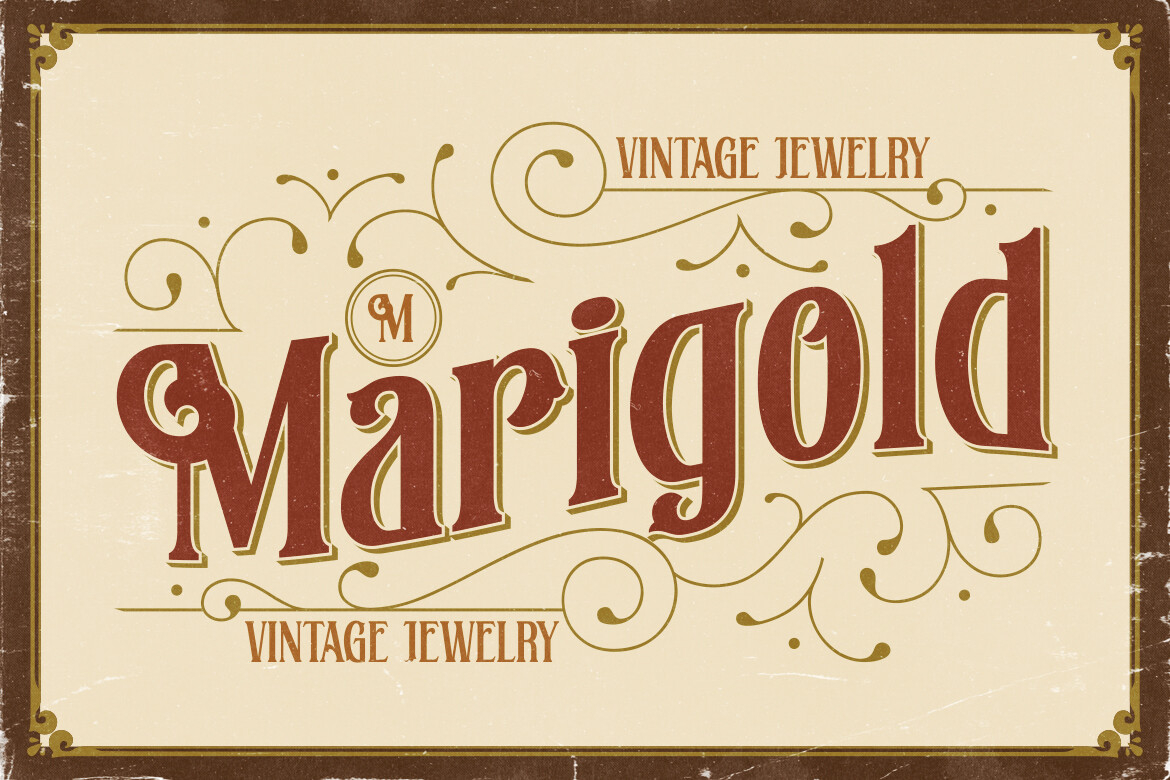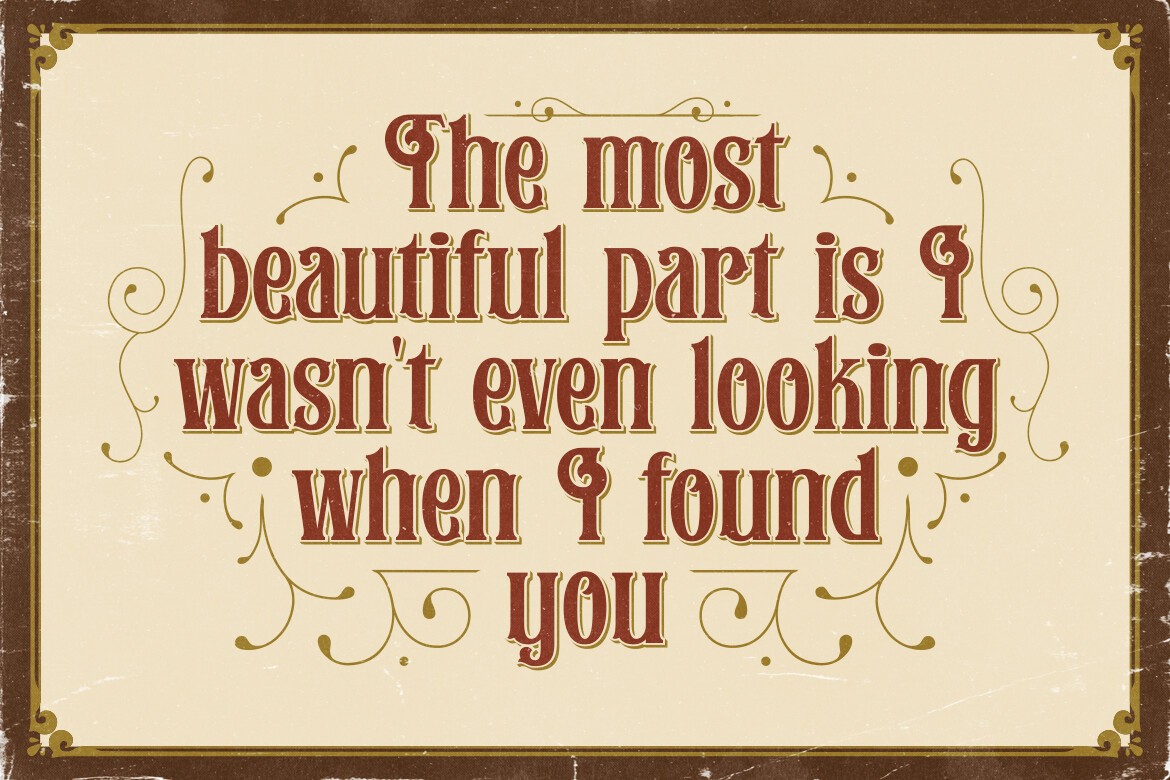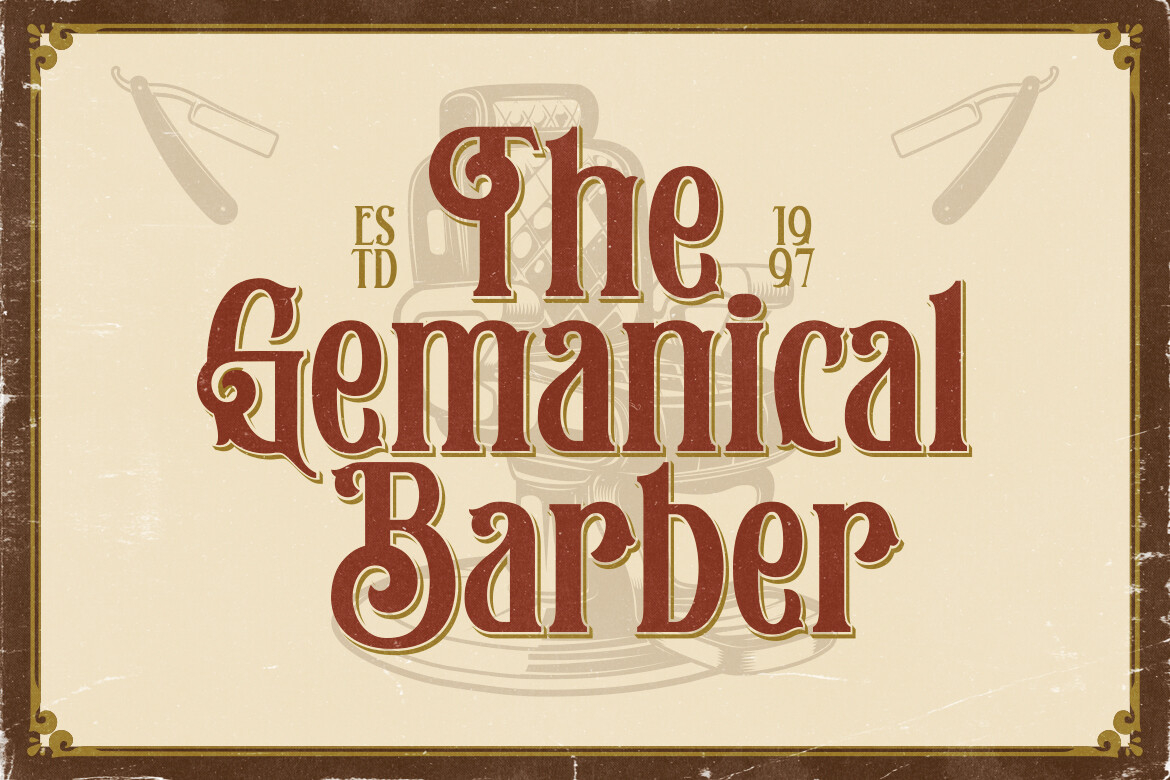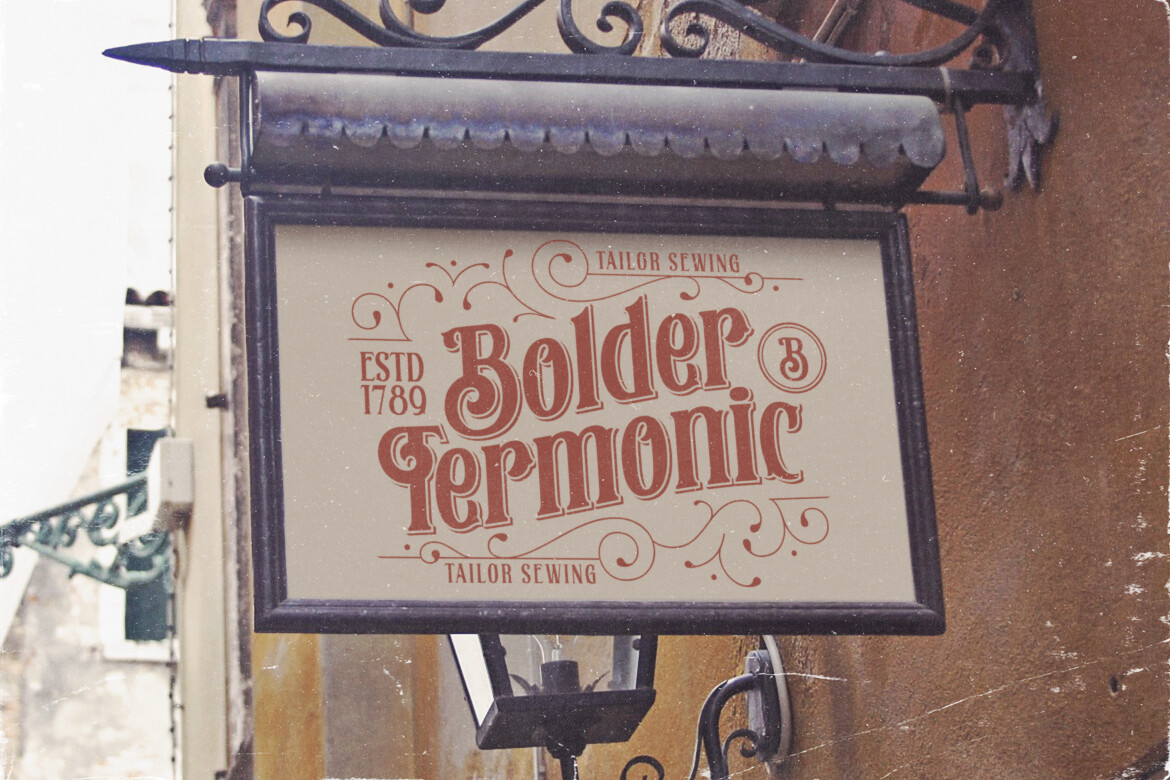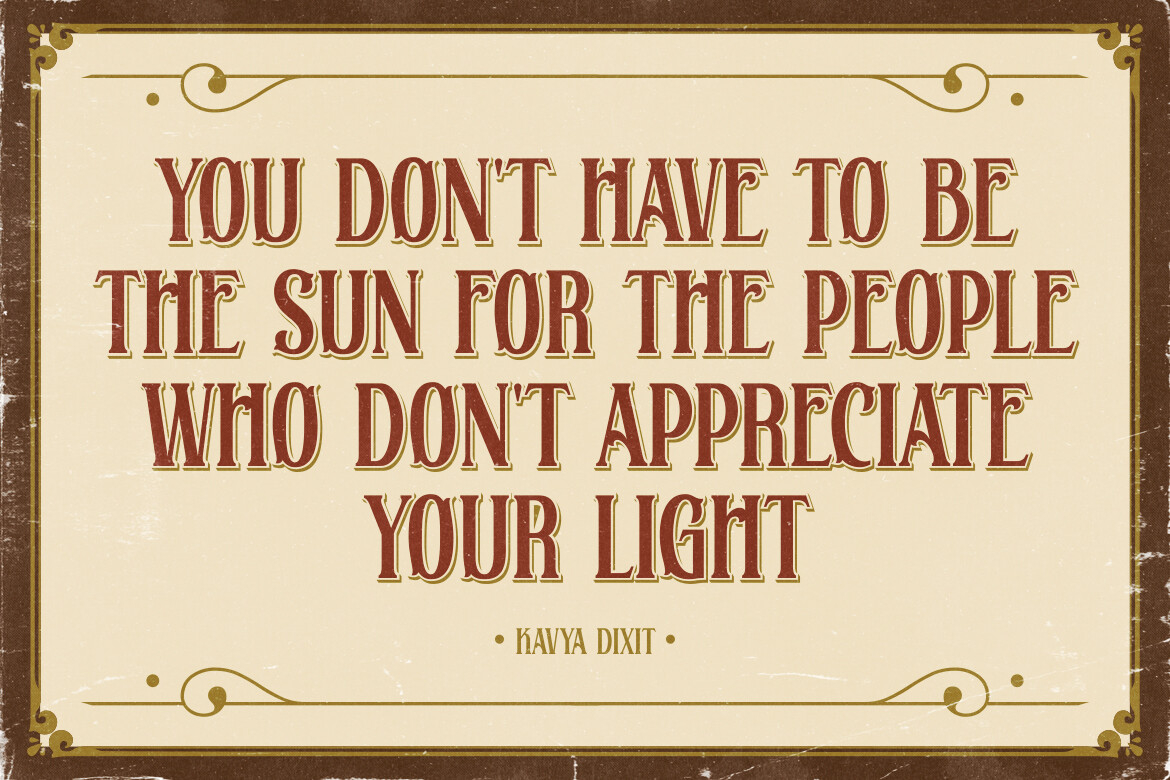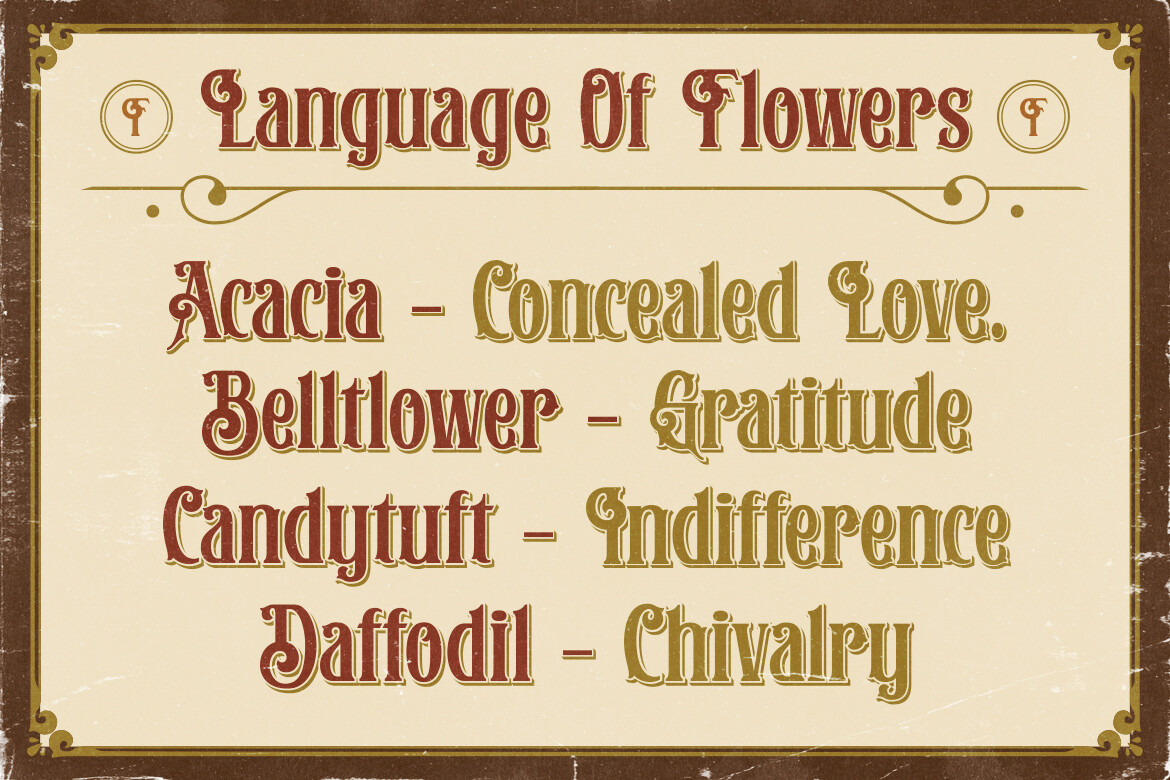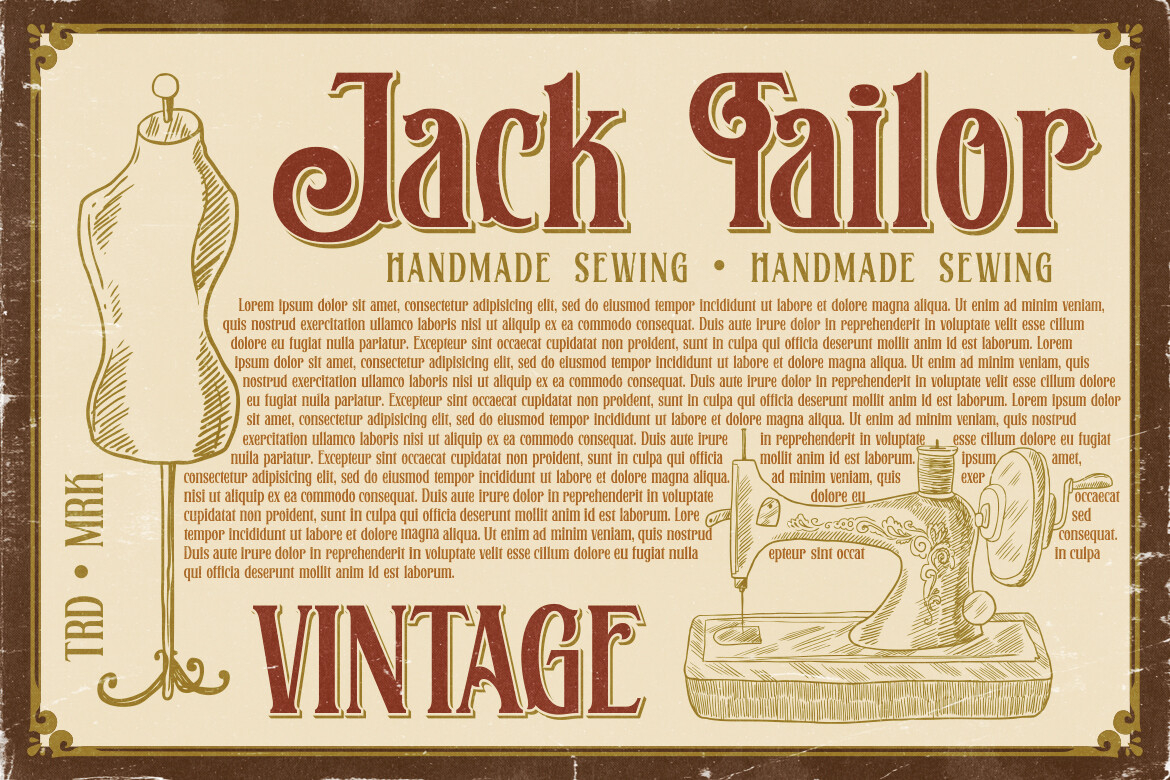
Christon Hunington Font
About Christon Hunington Font
Christon Hunington is a Vintage typeface font, it will add an old-time charm to any design project. Don’t miss the opportunity to infuse your designs with the elegance and nostalgia of vintage typography. This vintage font is the perfect companion for your creative journey.